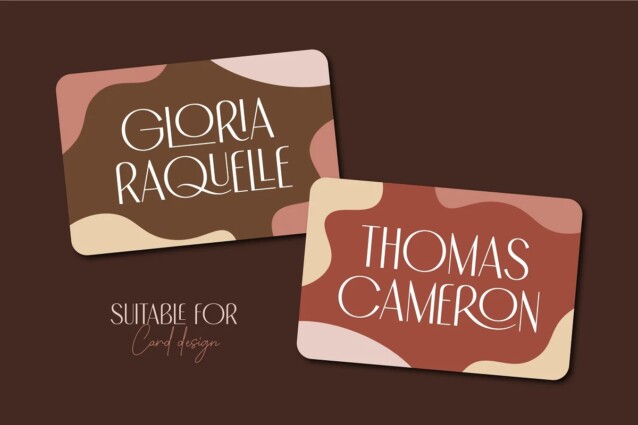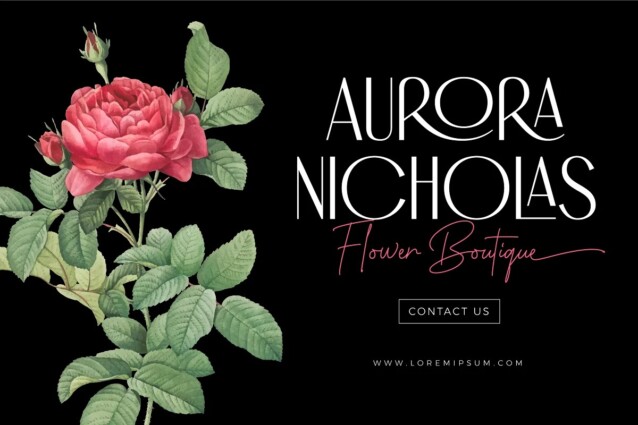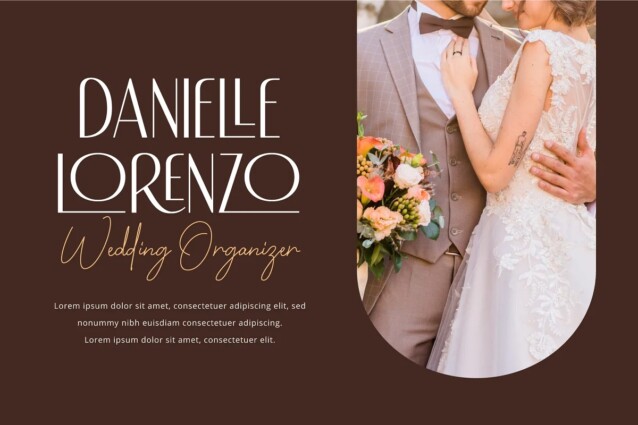
Charlotte Veronica Font
Charlotte Veronica Font is a minimalist and modern sans-serif typeface paired with an inky, classy handwritten script. Charlotte Veronica is also usable in a wide range of works such as invitations, labels, logos, magazines, books, greeting / wedding cards, packaging, stationery, novels, labels or any type of advertising purpose.